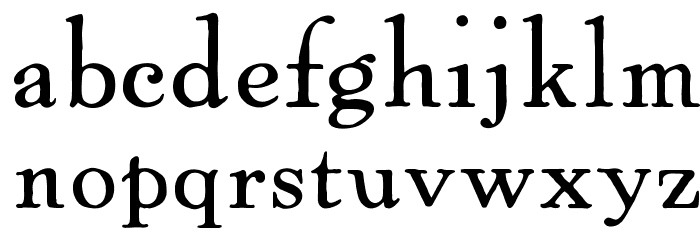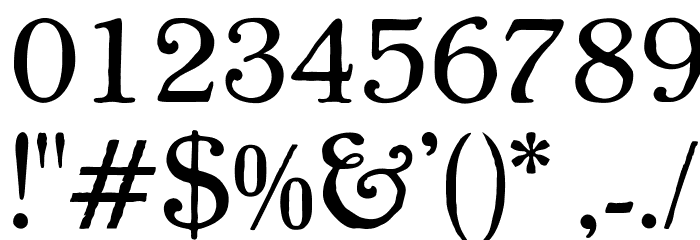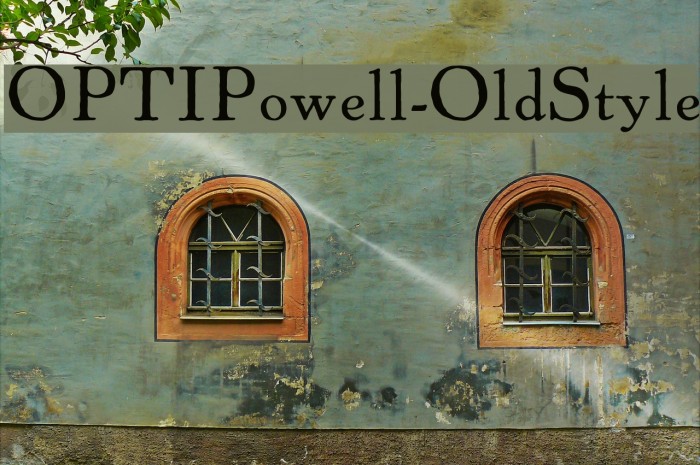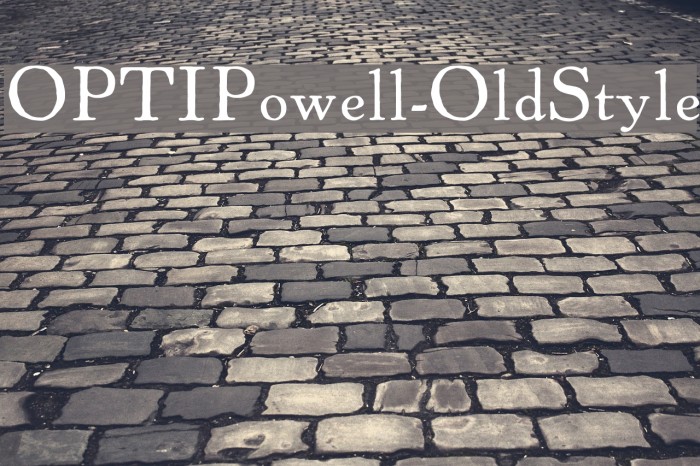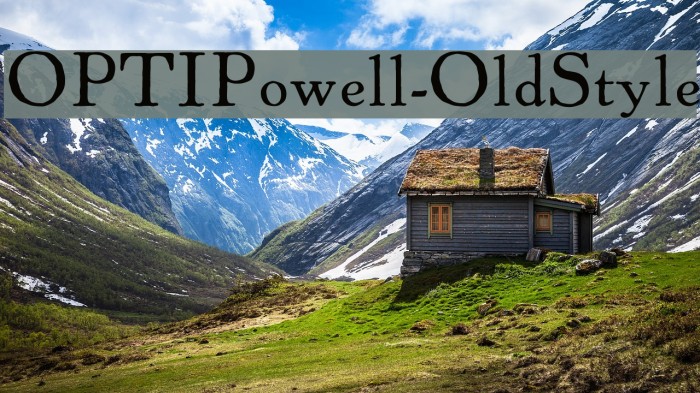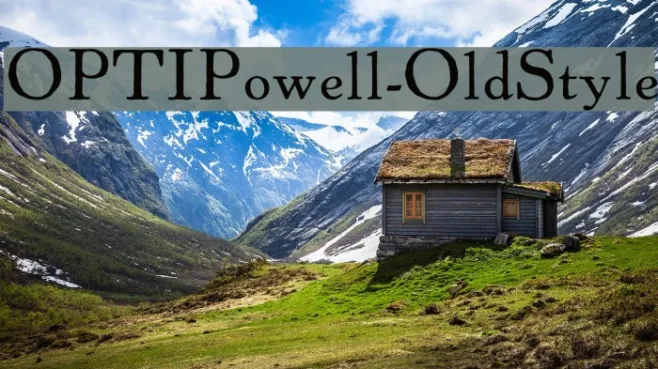
OPTIPowell-OldStyle Font
This font exhibits a classic serif style with elegant and refined strokes. The characters have a traditional appearance, featuring distinct serifs that add a touch of sophistication. The uppercase letters are bold and commanding, while the lowercase letters maintain a balanced and harmonious look. The numerals are clear and easy to read, making them suitable for various applications. The special characters are well-integrated, maintaining the overall aesthetic of the font. The design is reminiscent of old-style typography, offering a timeless and versatile appeal.
A classic serif font with elegant strokes and a traditional, timeless appeal.
- Proposed Projects: Ideal for book covers, formal invitations, branding materials, and editorial design.
- Category: Serif
- Overall Style: Classic